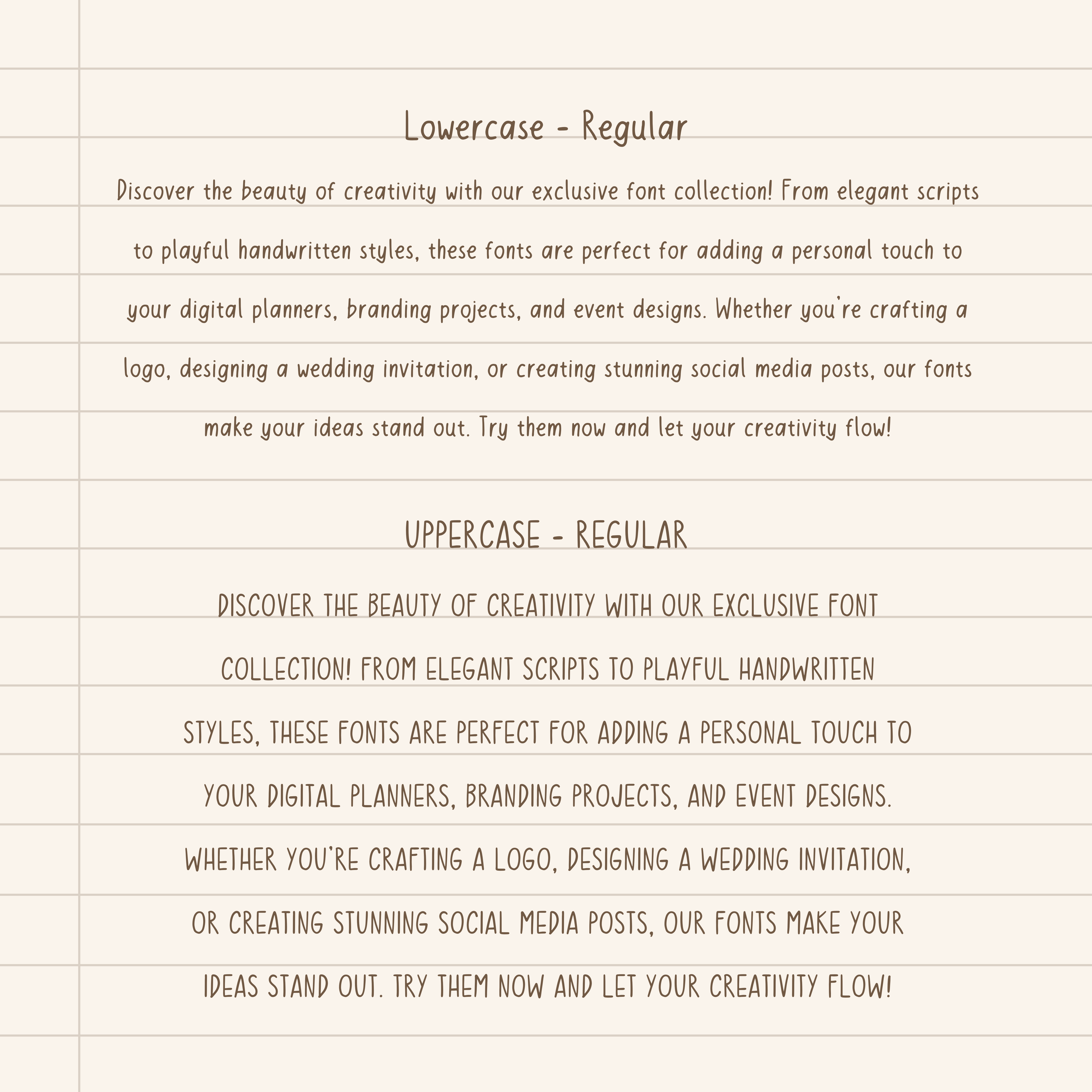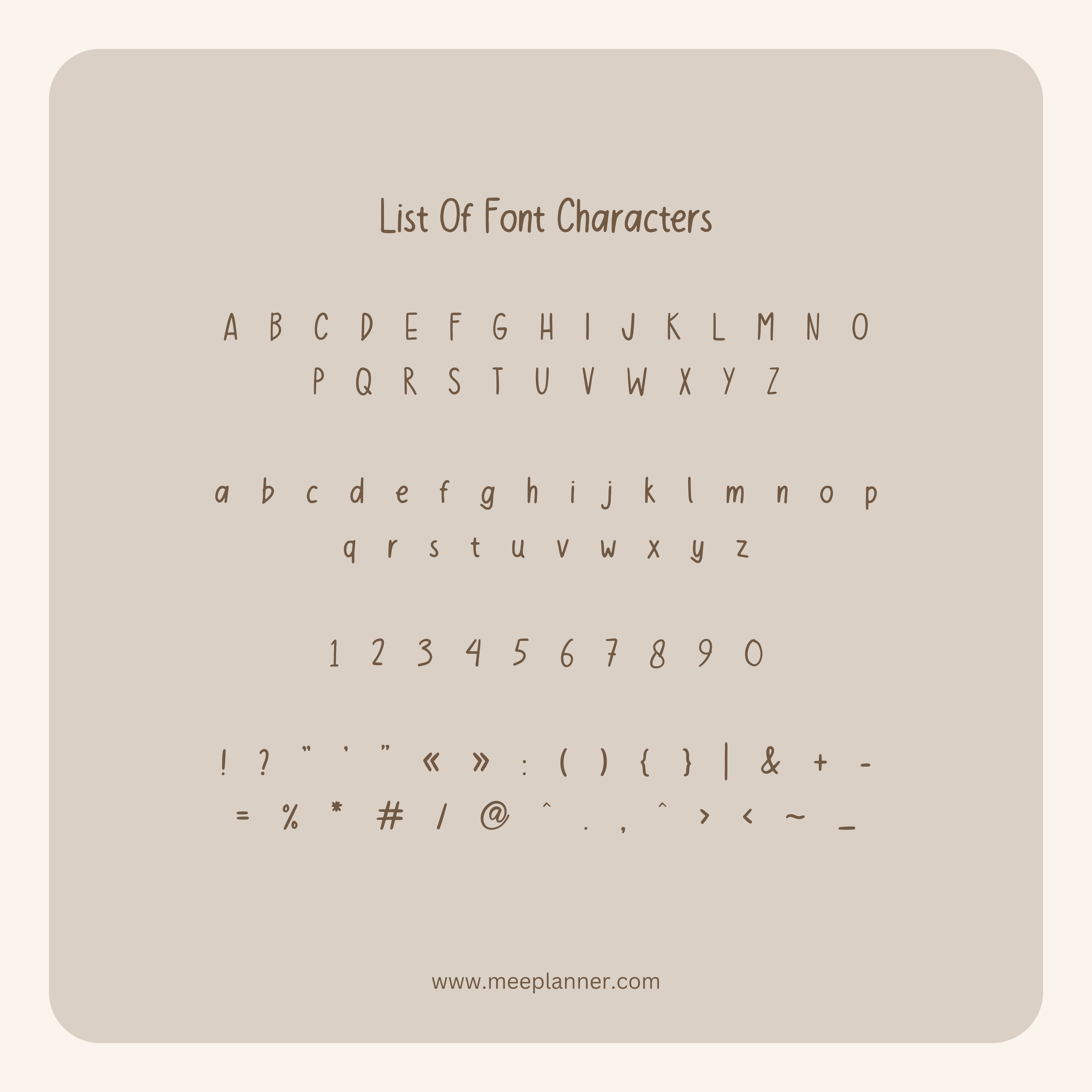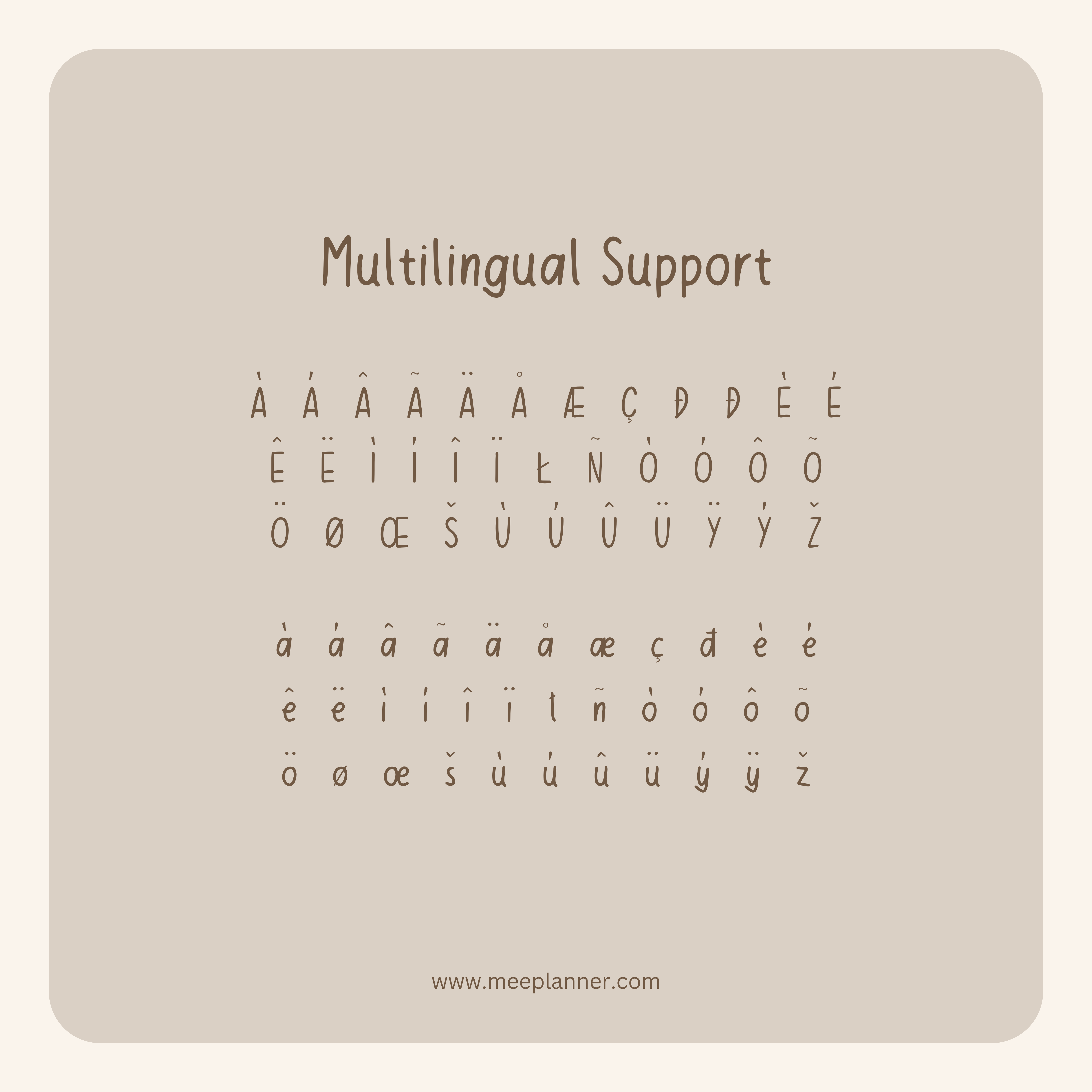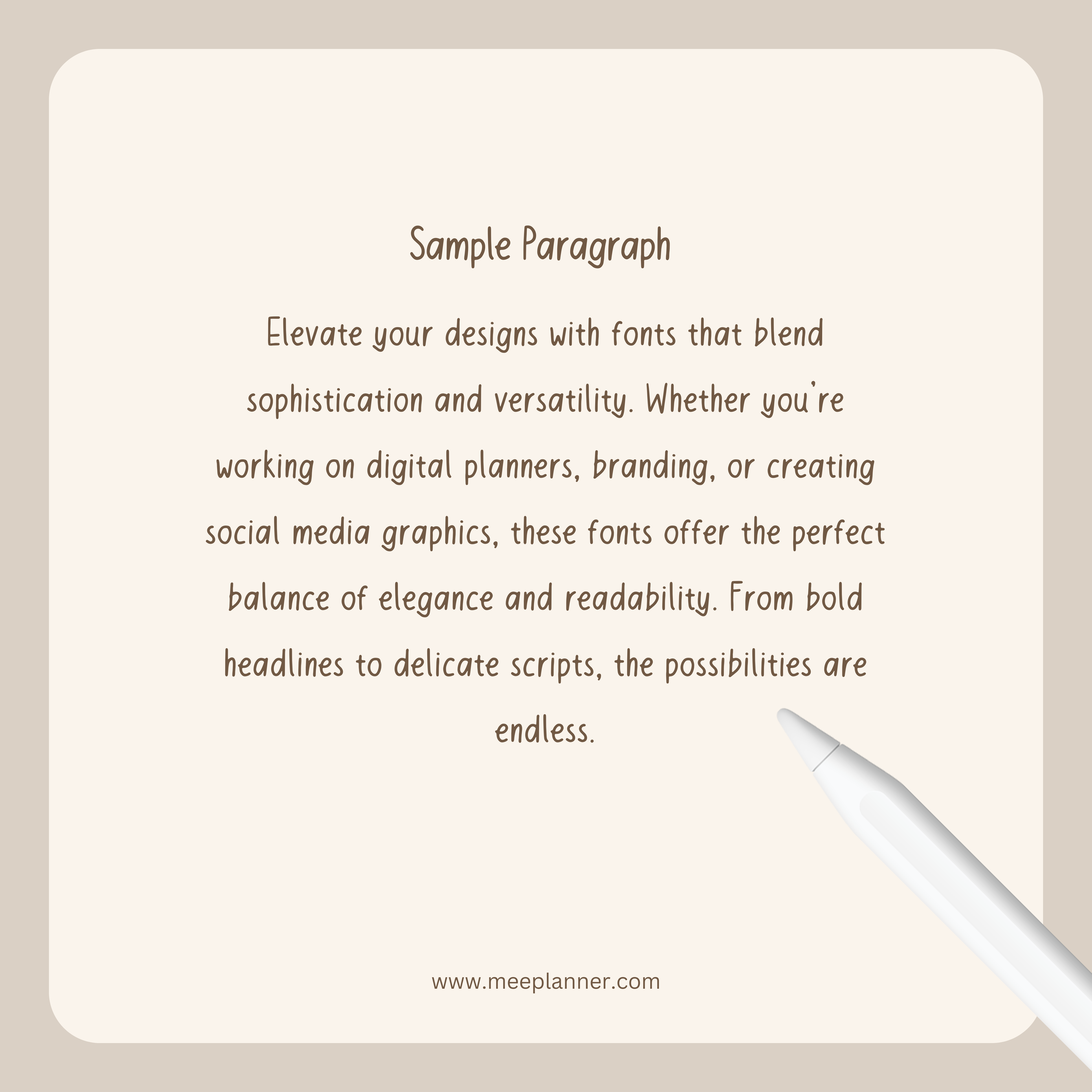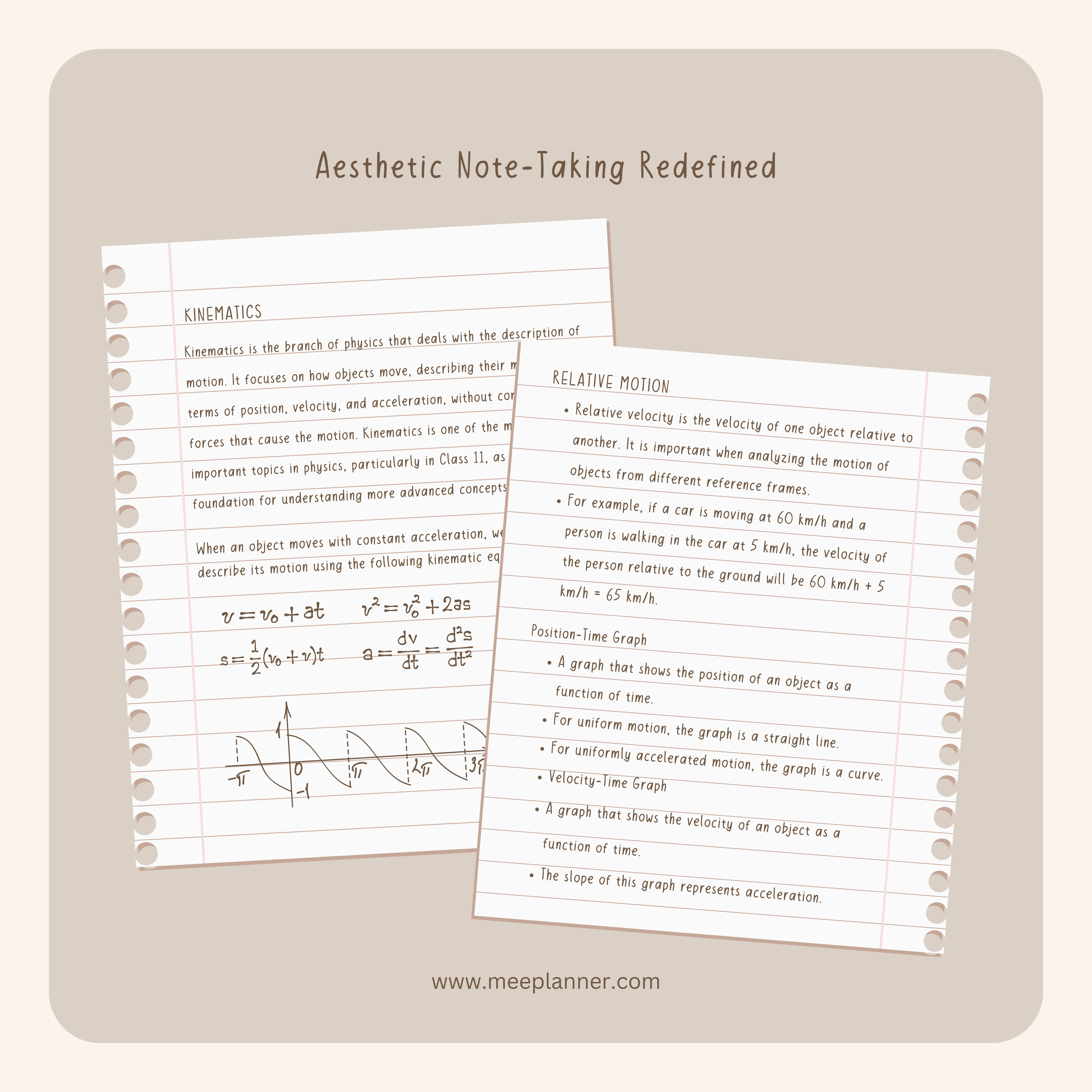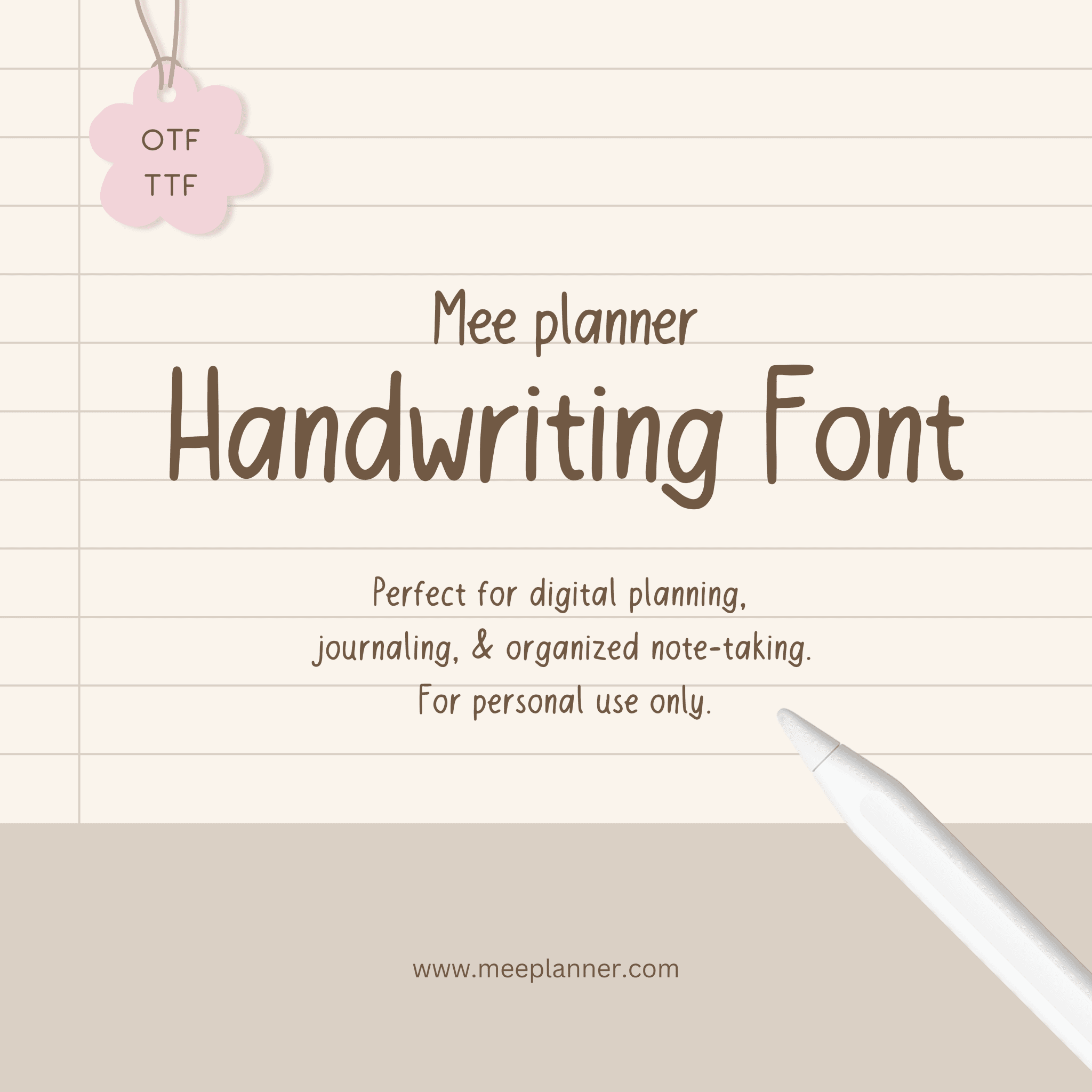
Aesthetic handwriting font overview
Discover our aesthetic handwriting font, a blend of elegance and readability. It's perfect for various projects requiring a personal touch, from invitations to graphic designs. This typeface offers a classic yet modern look that complements your creative work.
Key features of the font
Our font is carefully crafted with smooth curves and balanced strokes, ensuring high legibility. It comes in multiple styles and weights, allowing versatility for different design needs. Compatible with popular design software, it integrates seamlessly into any project.
Enhance your design projects
This aesthetic handwriting font elevates the visual appeal of both digital and print materials. Use it to add sophistication to branding elements or inject warmth into your website. The distinct style can transform ordinary texts into standout messages effortlessly.